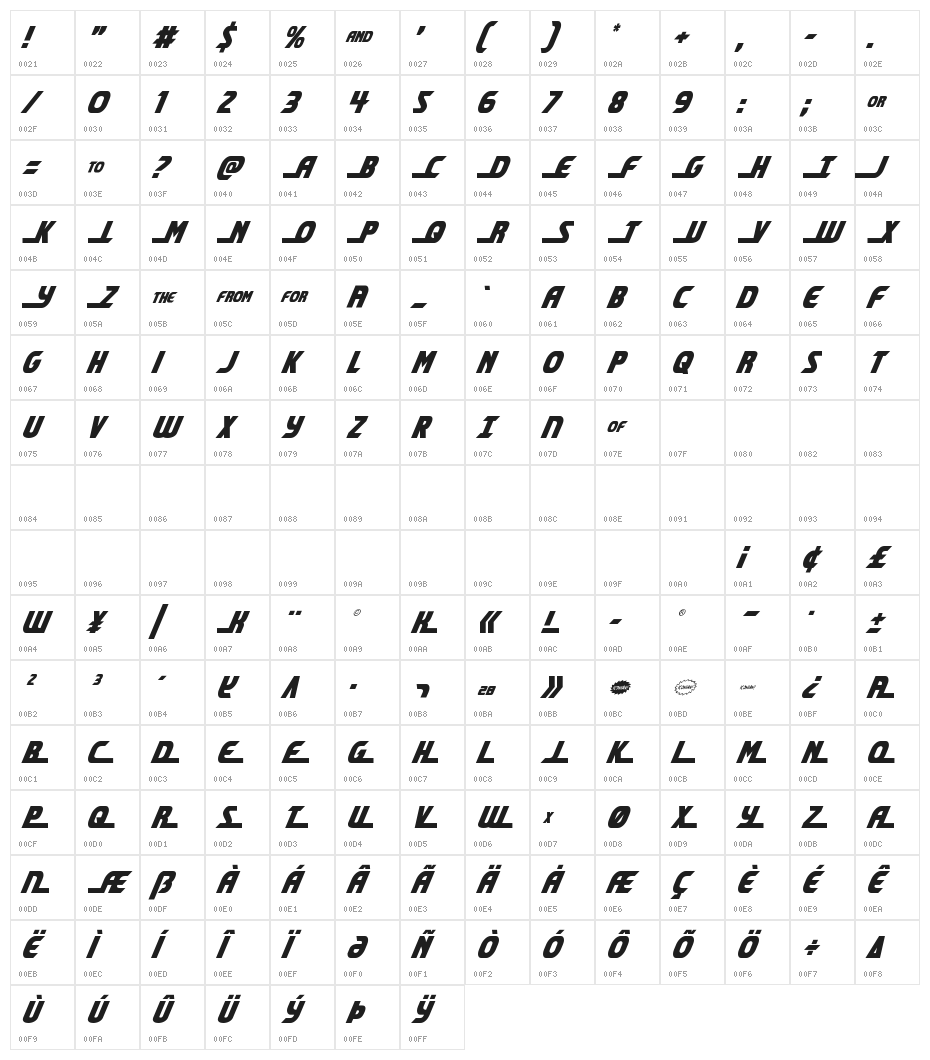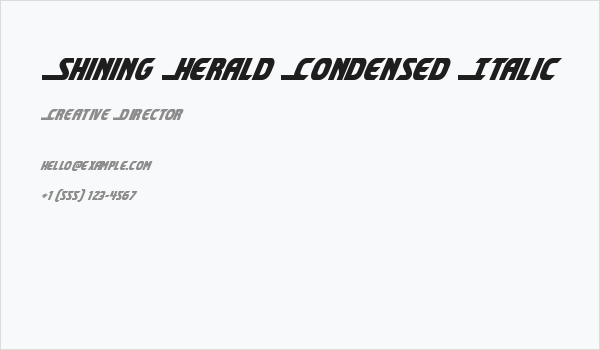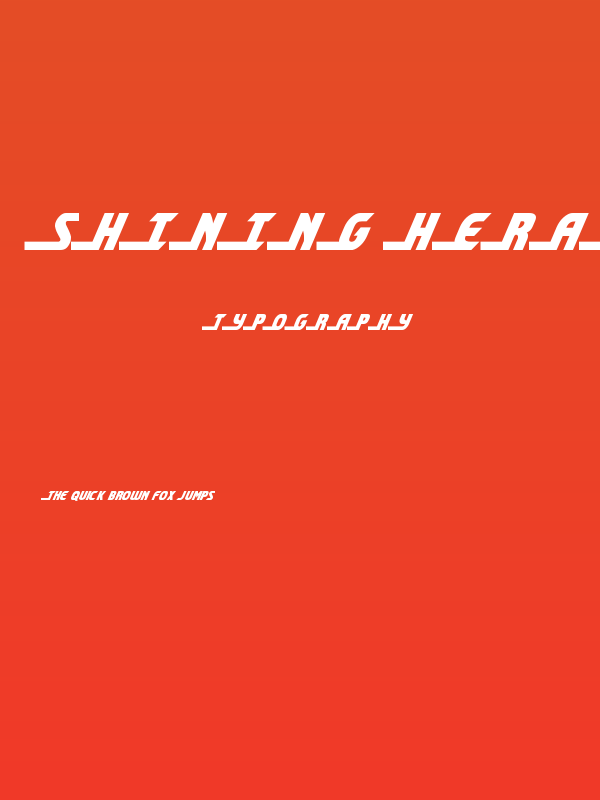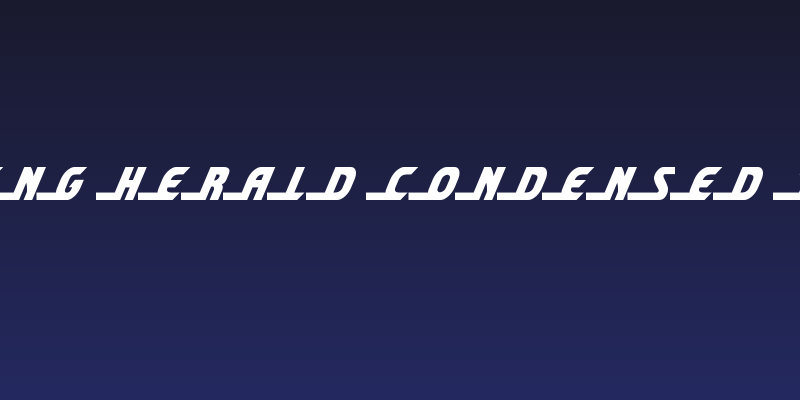
Shining Herald Condensed Italic Font
Shining Herald Condensed Italic Description
This font features a bold and dynamic style with a condensed and italicized form. The characters are sharply angled, giving a sense of movement and speed. The uppercase letters are prominent, with a strong presence that commands attention. The numbers and special characters maintain the same boldness and angularity, ensuring consistency across all elements. The overall design is modern and sleek, making it suitable for projects that require a strong visual impact.
| Proposed Projects | Ideal for sports branding, automotive advertisements, dynamic posters, and any project needing a strong, impactful typeface. |